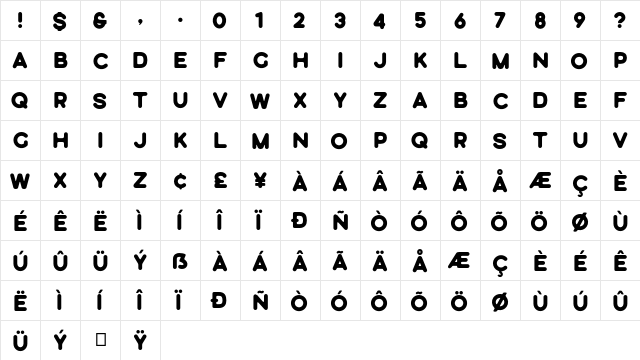
Silverstone Sans Round Sans-Round
| Designer | Ghuroba Design Studio |
Design Context for Silverstone Sans Round Typeface
Silverstone Sans Round uses gentle rounded endings to create a warm, inviting typographic personality — less corporate than geometric sans, more refined than playful display fonts.
Well-suited to UI design, mobile interfaces, and any brand that wants approachability without sacrificing clarity.
Font Pairing: Pairs well with a rounded or humanist sans for body copy, maintaining the friendly tone without relying on Silverstone Sans Round to carry extended reading.
Pro Tip: Use Silverstone Sans Round for UI elements, app interfaces, and anywhere a friendly, approachable tone needs to be maintained without sacrificing clarity.